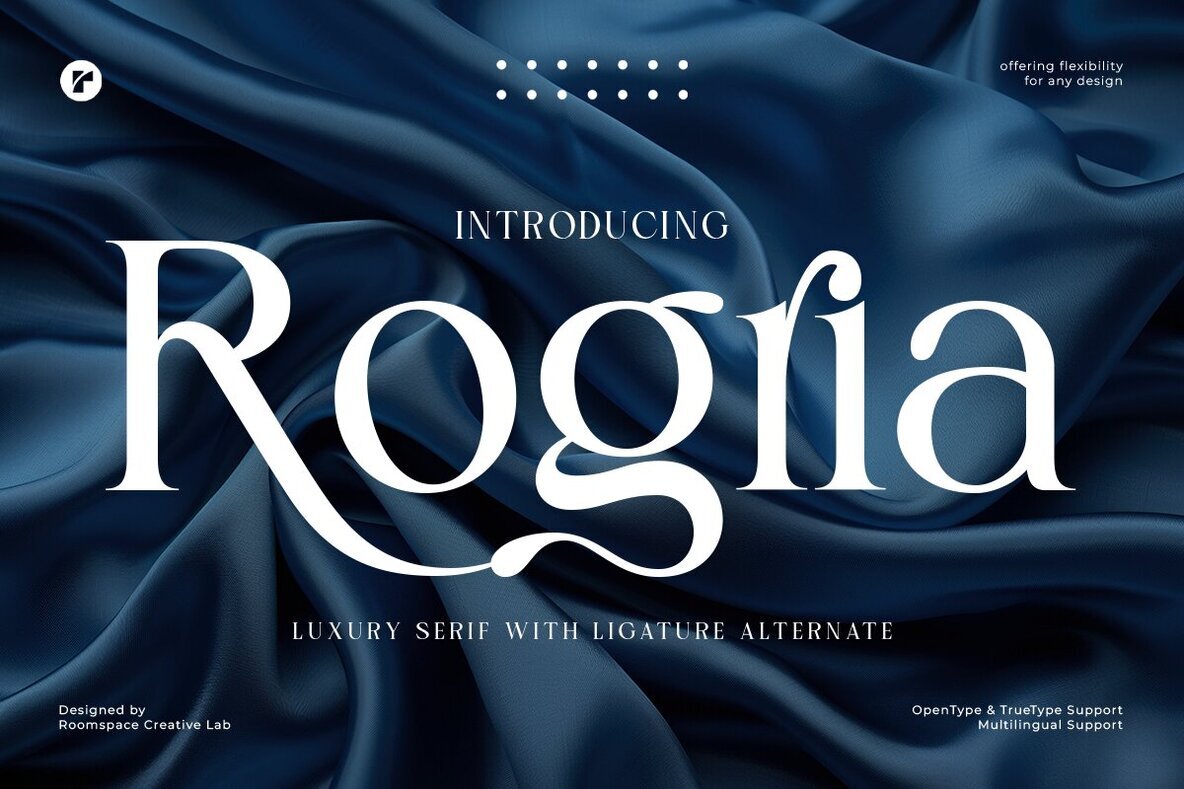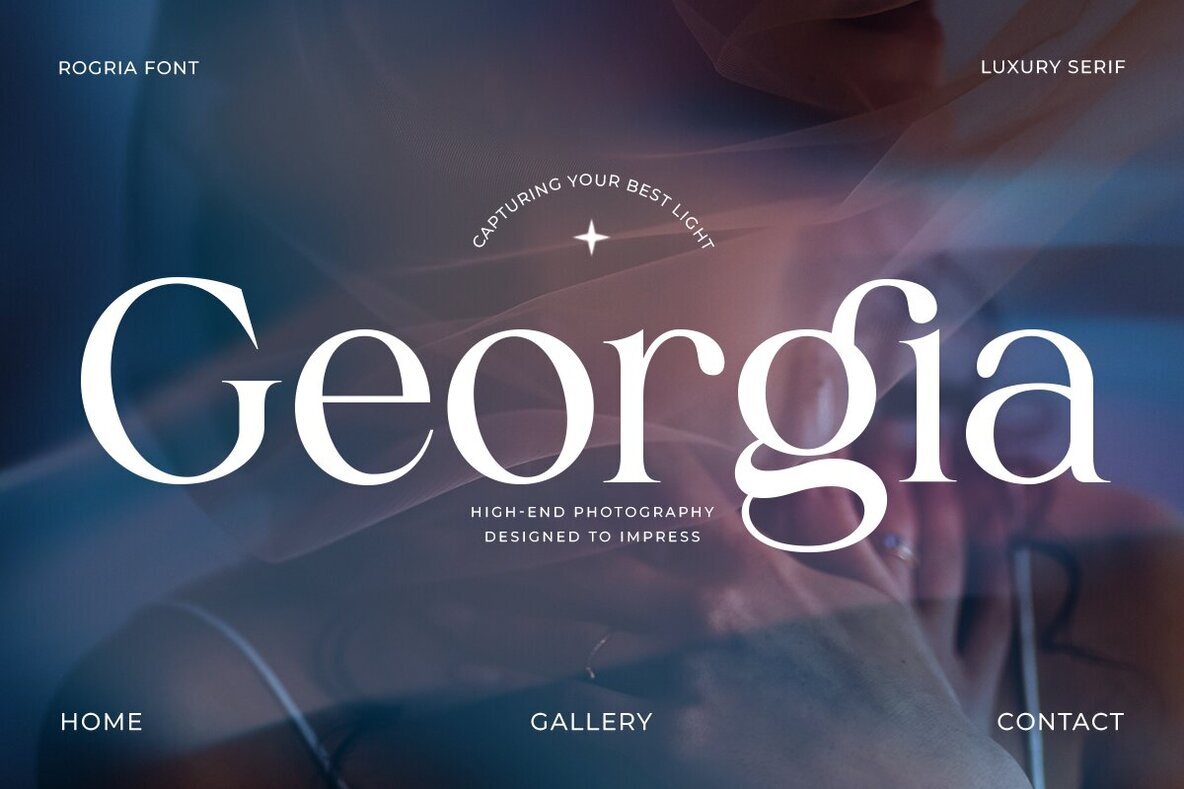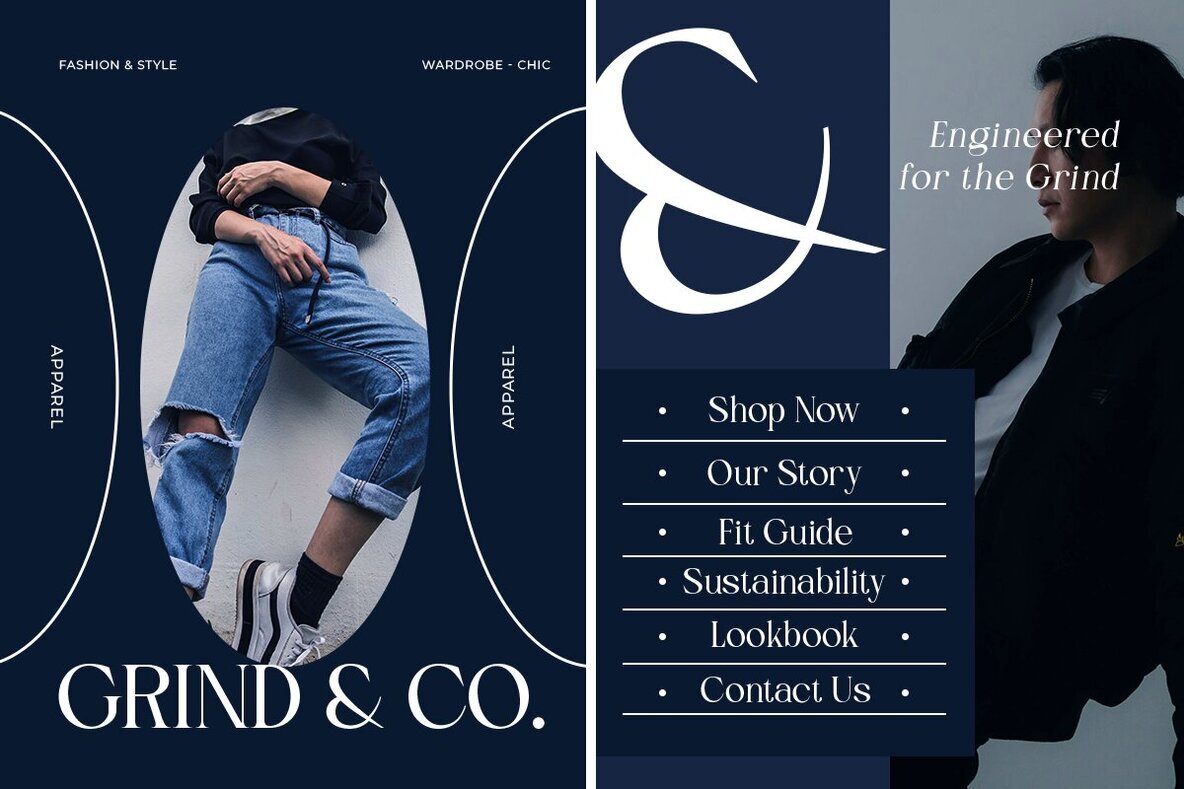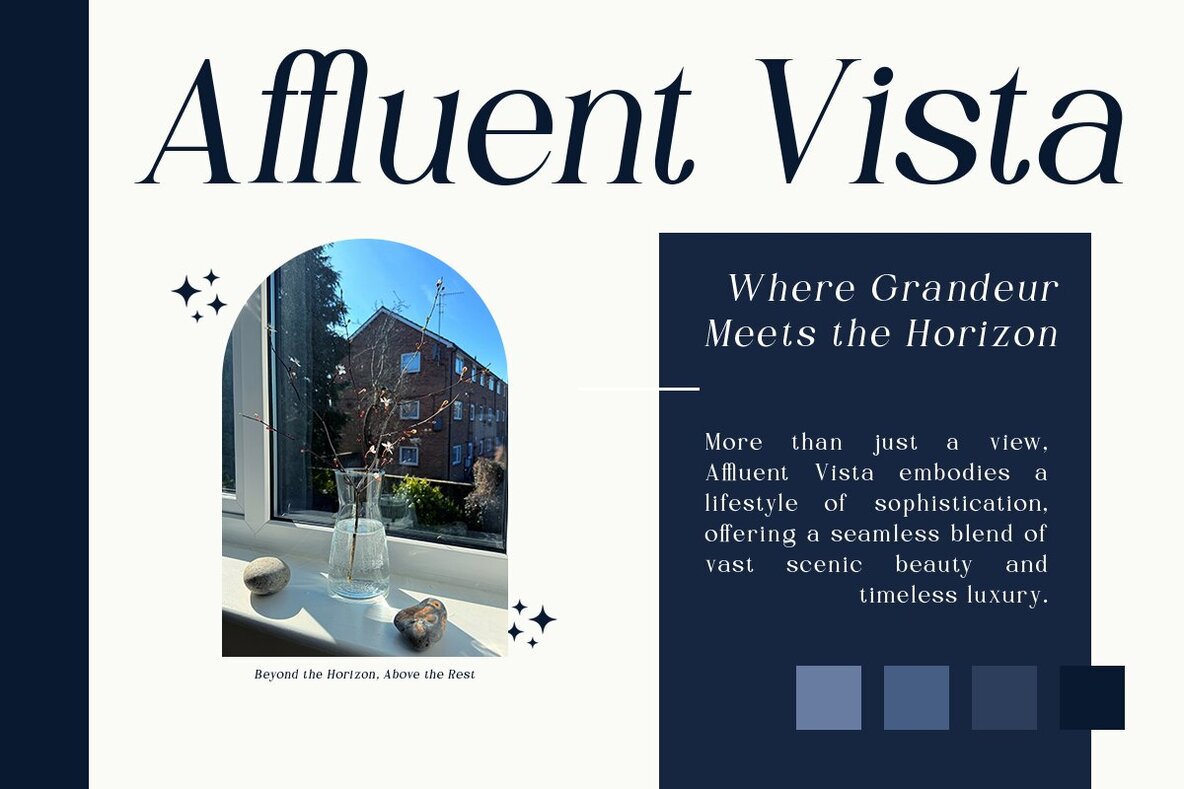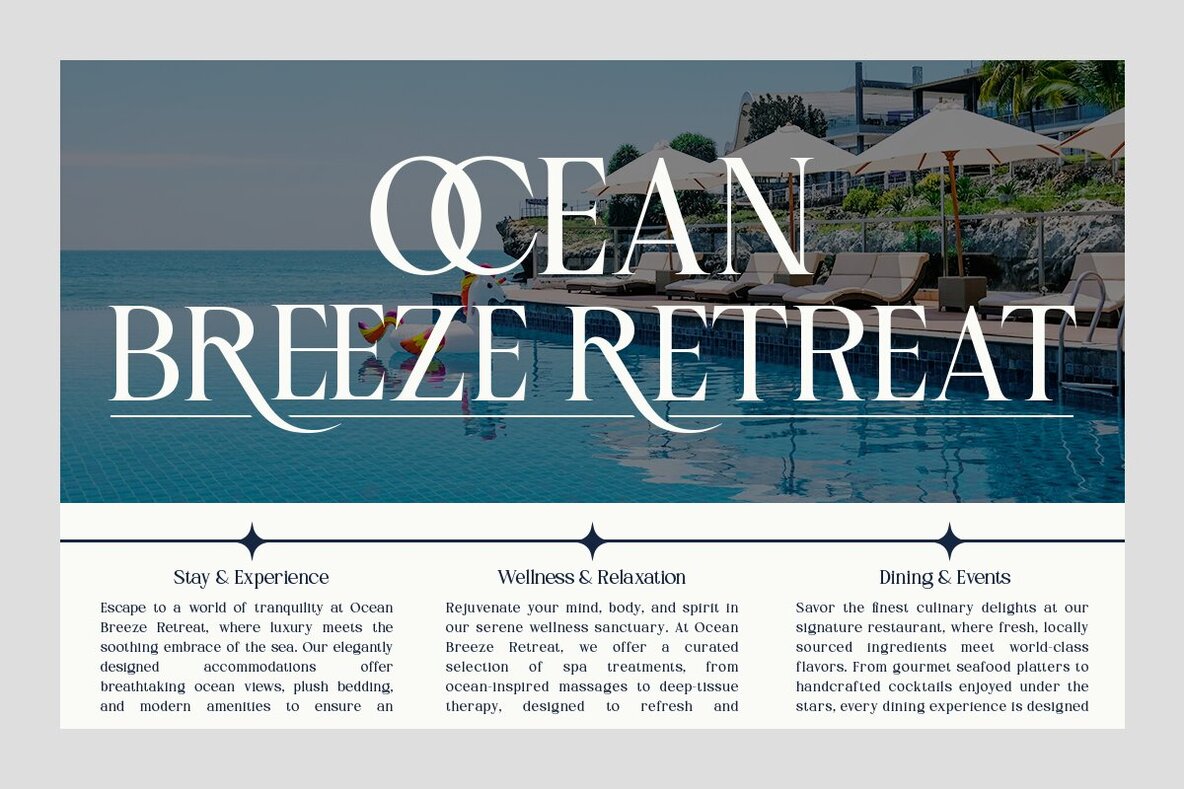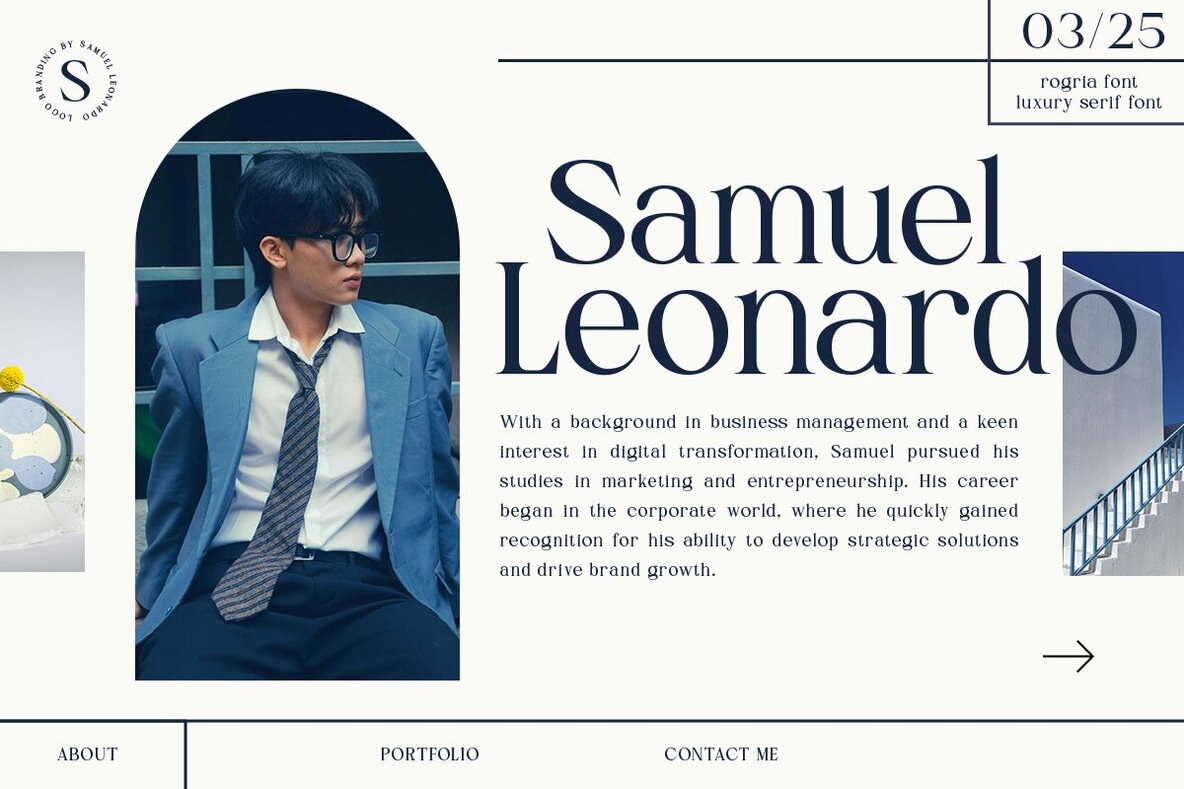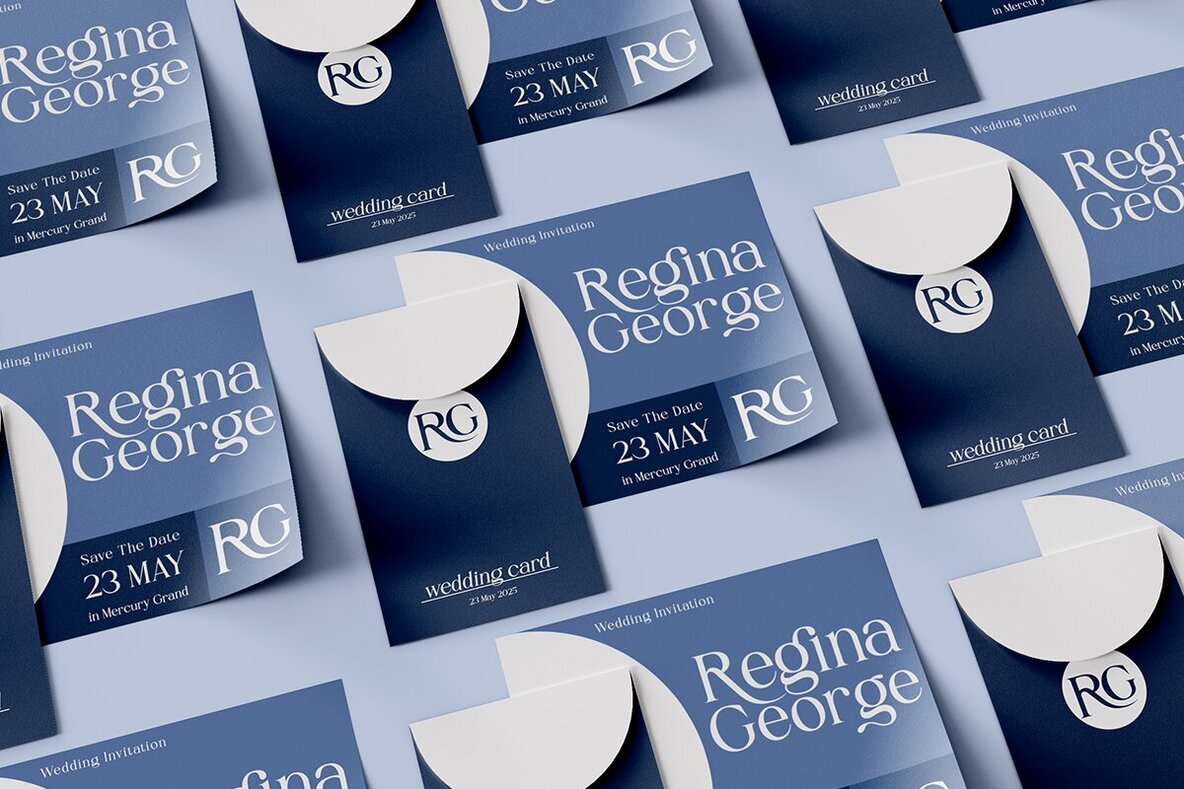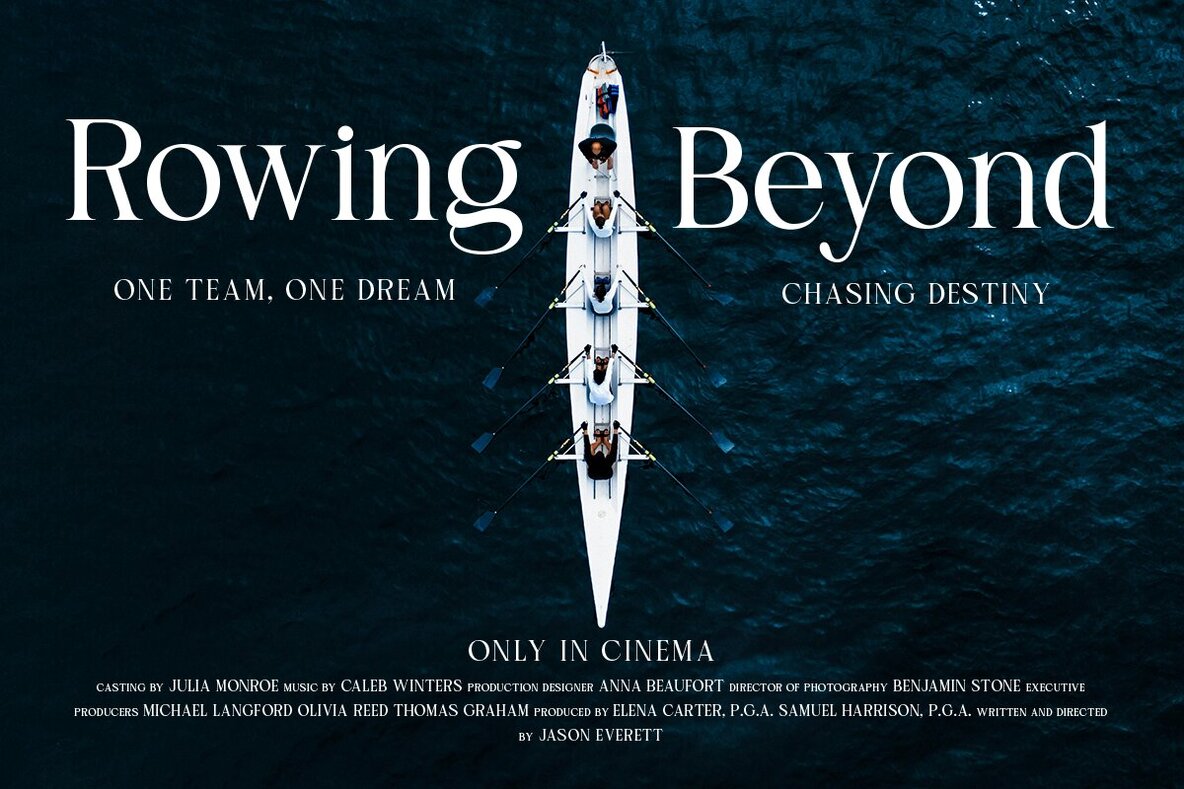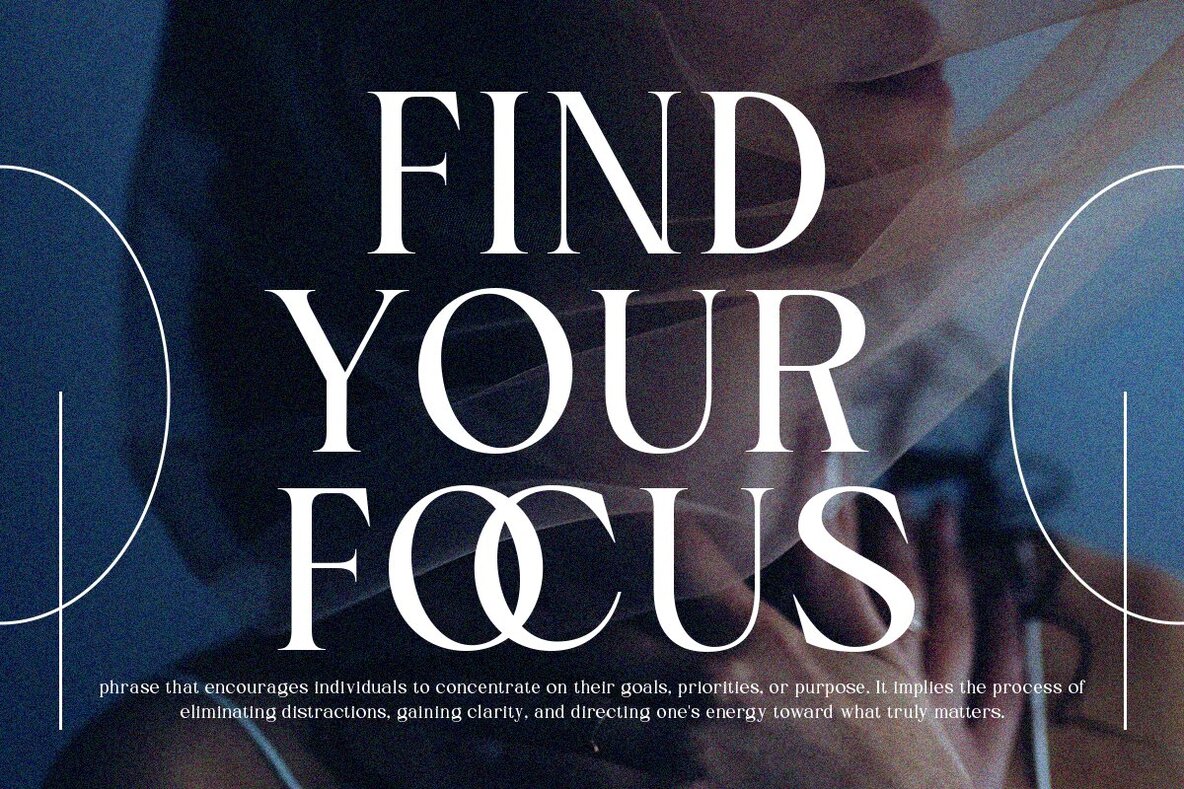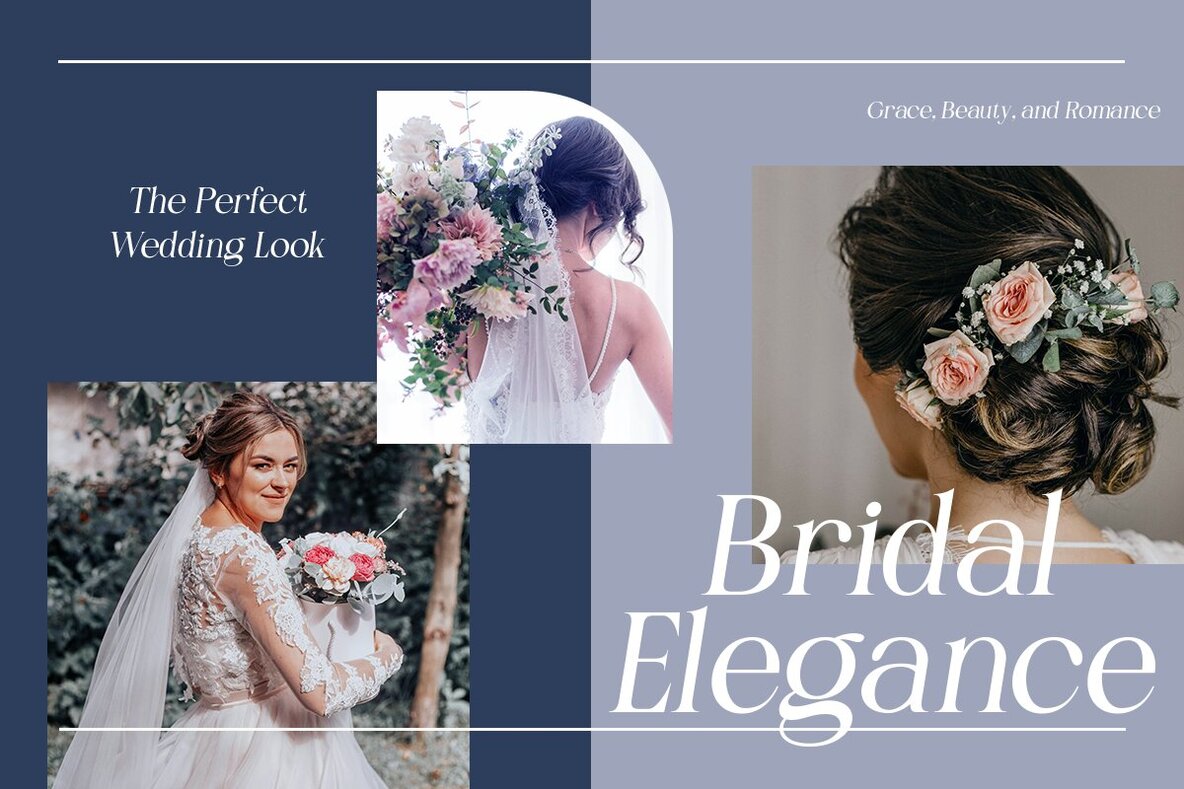
Rogria Font
Rogria Serif is a refined typeface crafted for those who appreciate the nuances of sophisticated typography and timeless aesthetics. It boasts dramatic contrasts and sculptural curves, infusing high-end branding and editorial design with a distinctive voice. The elegant strokes and strong vertical stress of Rogria Serif exude luxury and modern poise, making it a compelling choice for any headline or title. When your message requires elegance and authority, Rogria Serif stands out as the visual voice of your brand. Designed for bold yet graceful impacts, it invites audiences into a world of sophistication, trust, and artistic expression. Opt for Rogria Serif and create designs that speak with timeless clarity.Rogria Serif: Timeless Elegance for Sophisticated Design
Versatile for a Luxury Audience